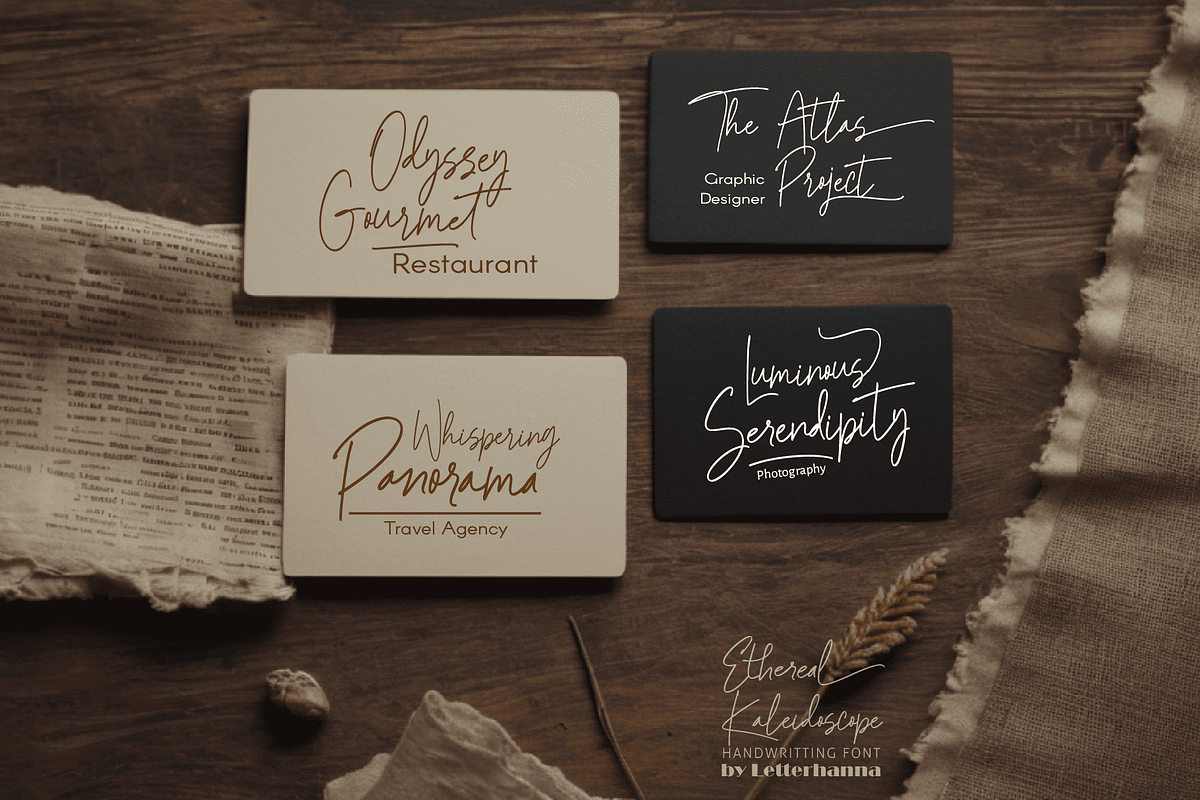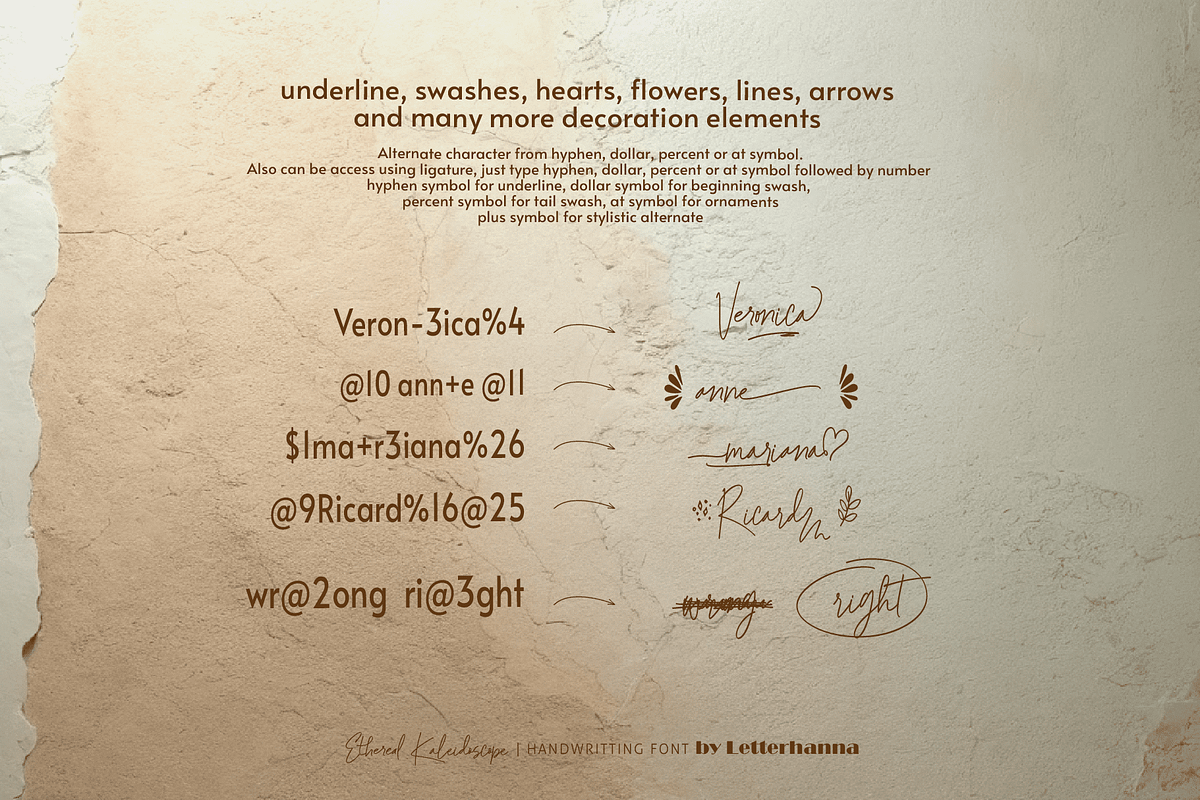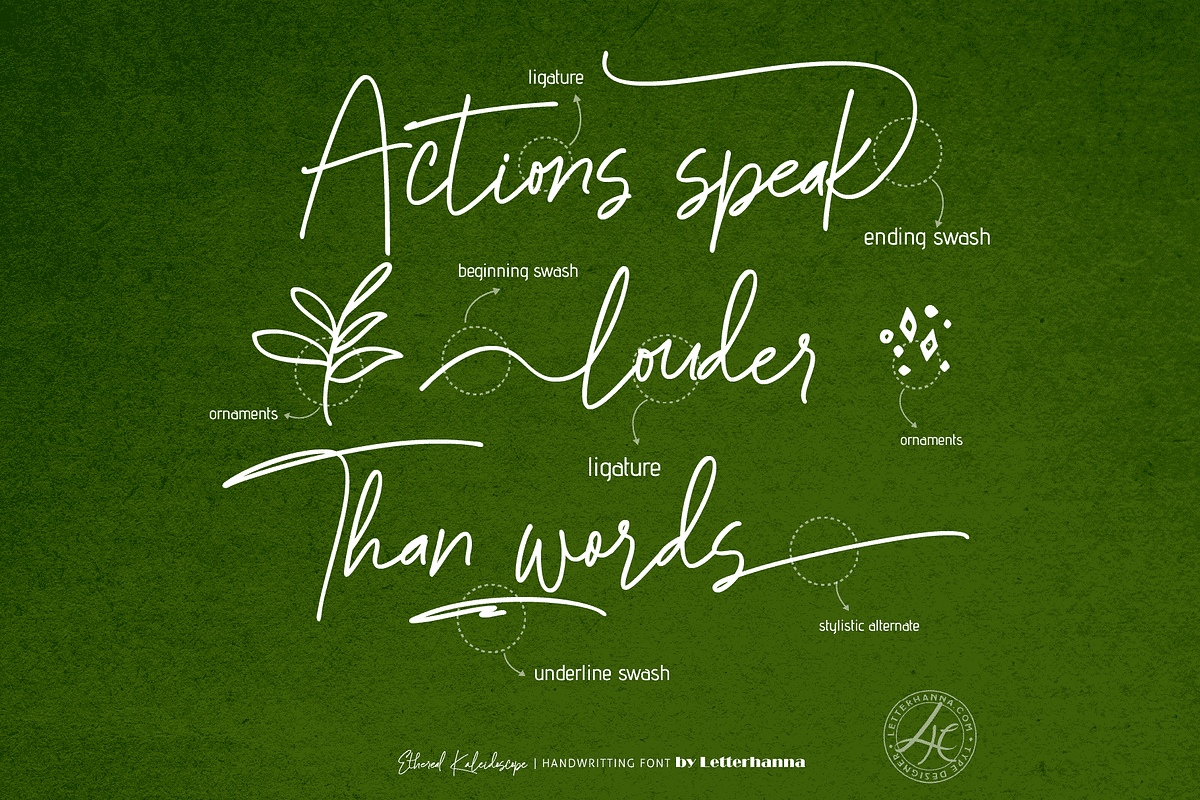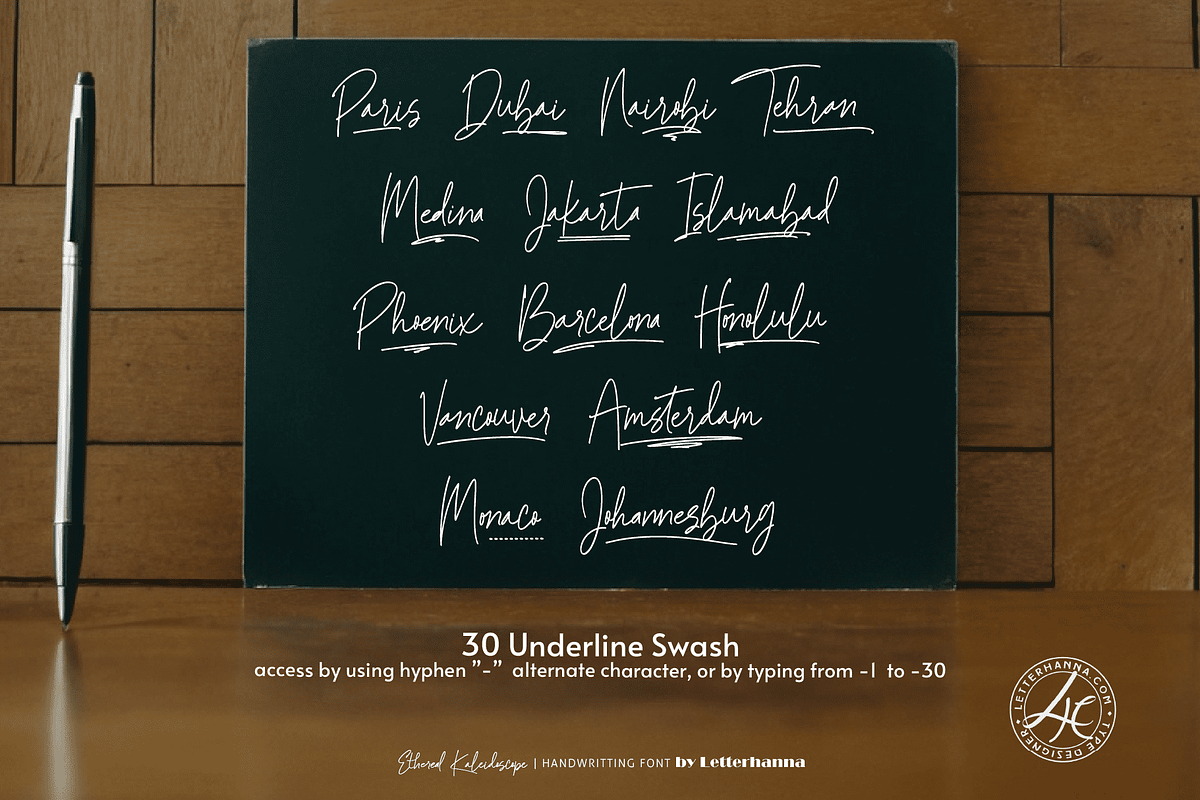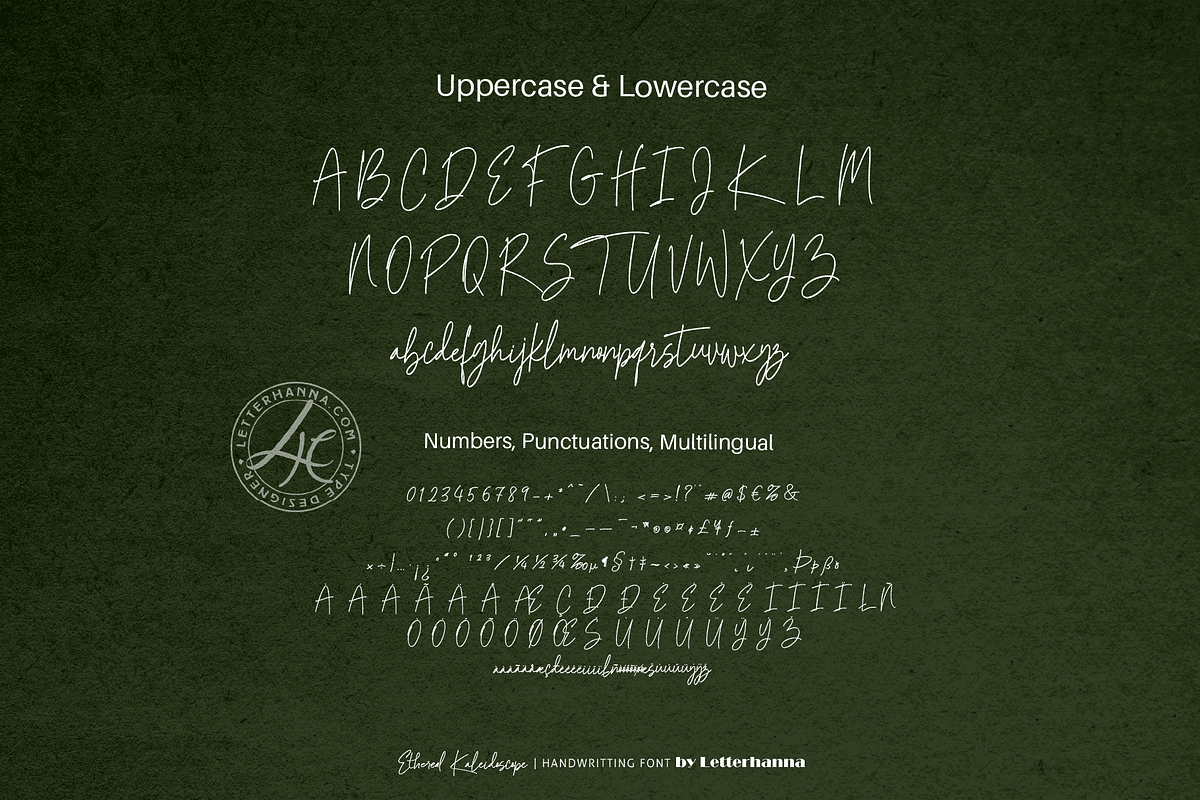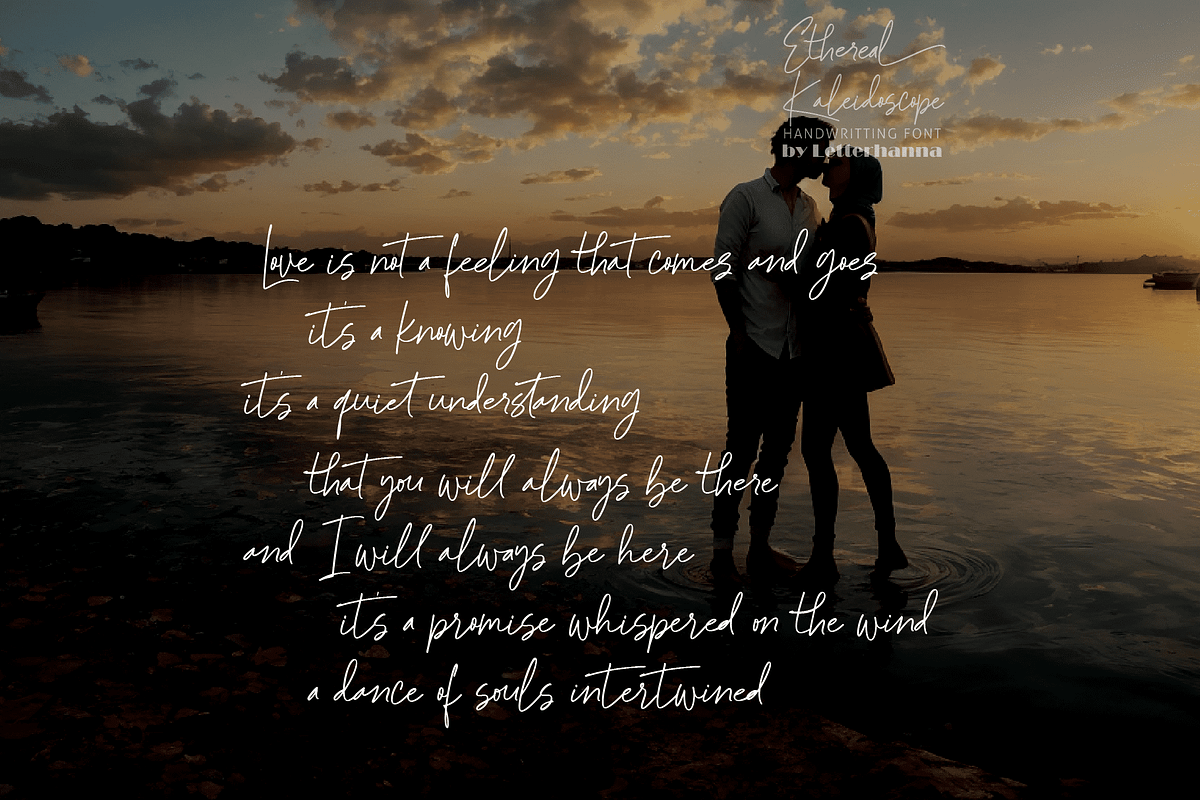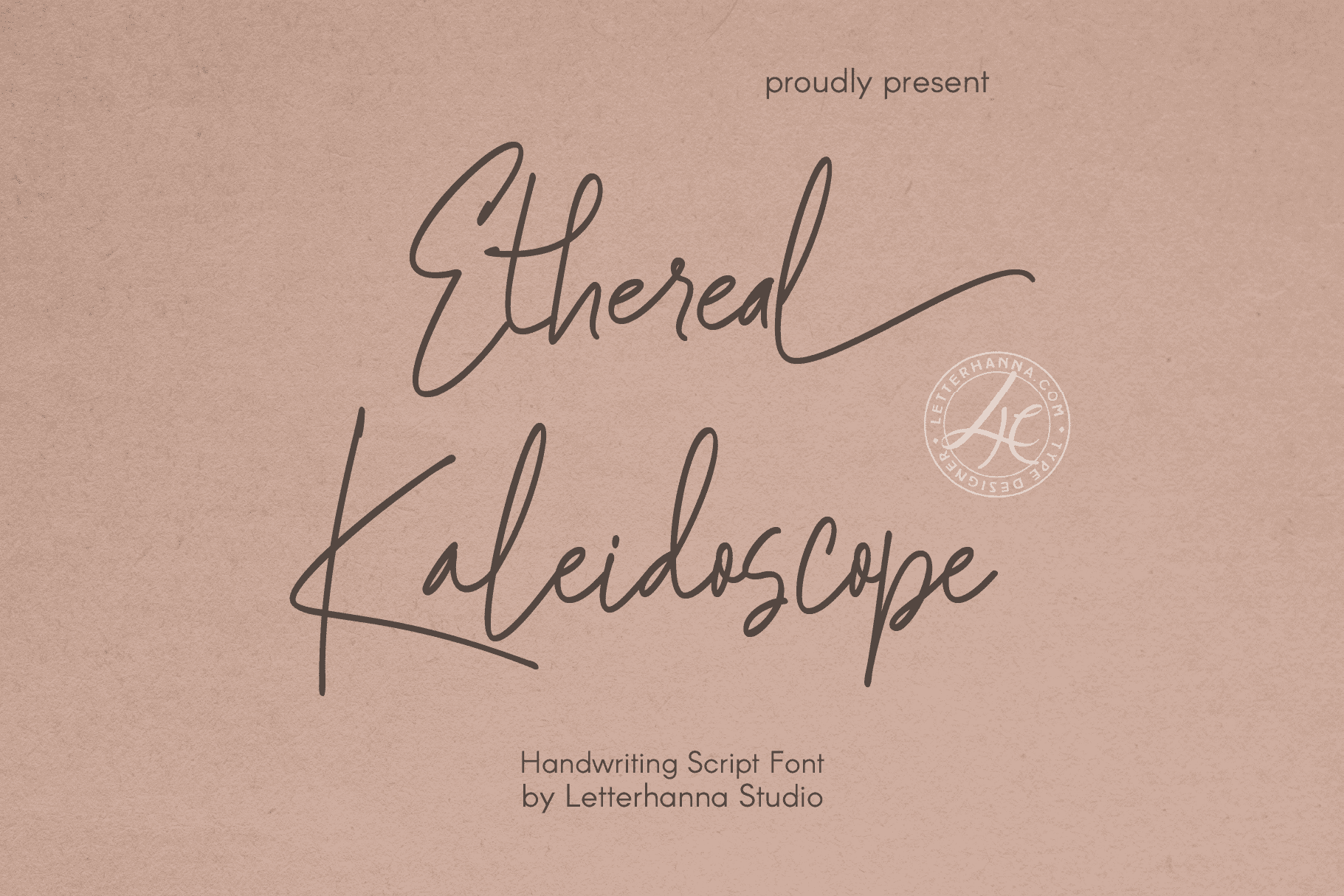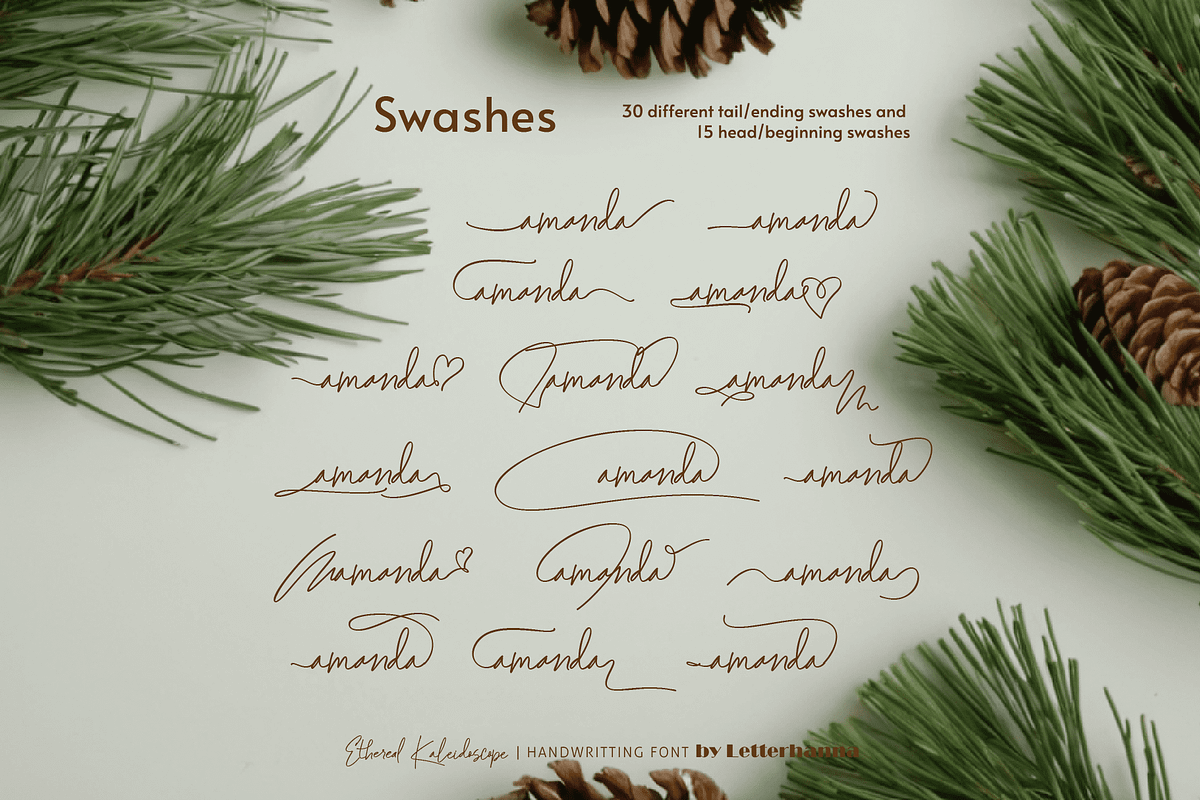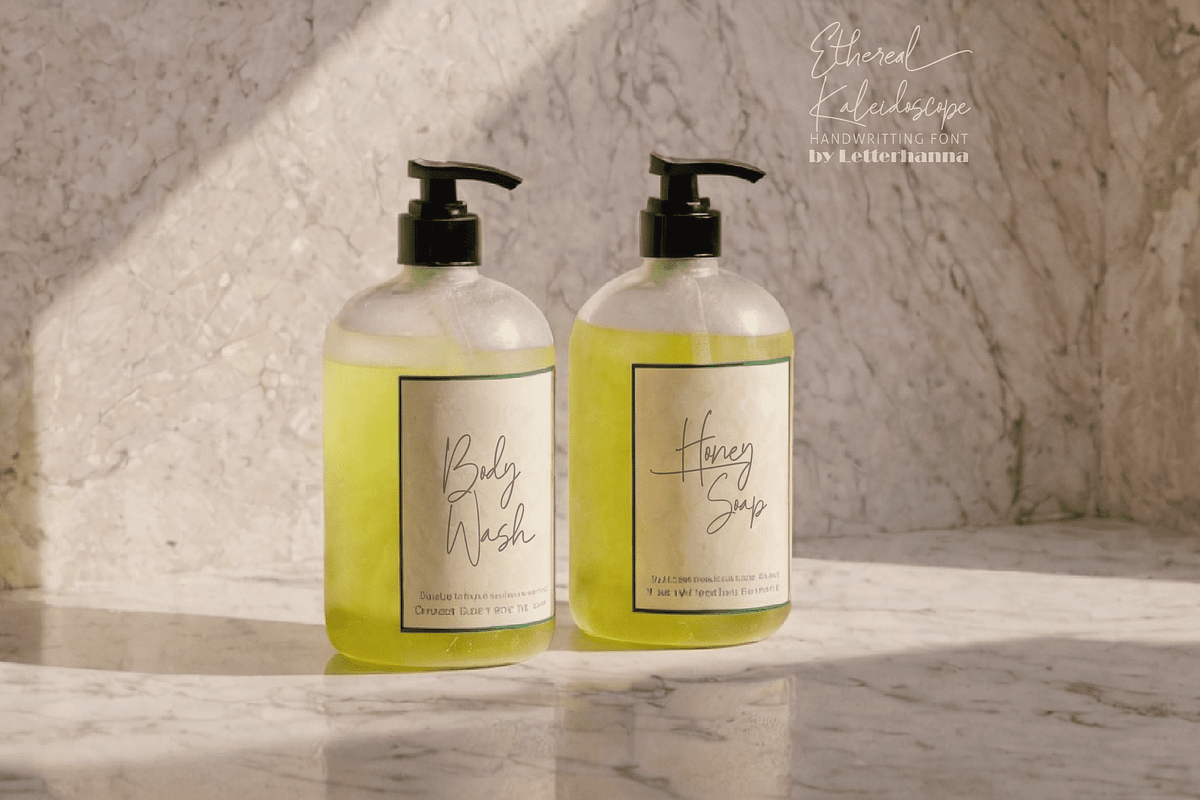
Ethereal Kaleidoscope Font
Introducing Ethereal Kaleidoscope, a new typeface that captures the essence of fleeting beauty and mesmerizing transformation. Inspired by the ever-shifting patterns of a kaleidoscope, this font boasts an enchanting flow and delicate details, perfect for projects that demand a touch of the otherworldly.
Ethereal Kaleidoscope dances across your designs, weaving a spell of wonder with its captivating curves and ethereal grace. Whether you're crafting captivating headlines, whimsical invitations, or otherworldly branding materials, this font will imbue your work with a touch of magic and endless possibility.
Easy Access to Glyphs and Swashes
Accessing Stylistic Alternates
Stylistic alternates can be accessed by typing a plus symbol "+" in front of the original letter. For example, type "+a" to get the stylistic alternate of the letter a.
Accessing Swashes and Ornaments
Underline Swashes: Use a hyphen symbol "-" followed by a number between 1 and 30. For example, type "-3", "-22", or "-17" to get various underline swashes.
Head/Beginning Swashes: Use a dollar sign "$" followed by a number between 1 and 9. For example, type "$2" or "$8" to get different head/beginning swashes.
Tail/Ending Swashes: Use a percent sign "%" followed by a number between 1 and 30. For example, type "%3" or "%15" to get various tail/ending swashes.
Ornaments: Use an "at" symbol "@" followed by a number between 1 and 26. For example, type "@4" or "@13" to get different ornaments.
PUA Encoding for Ease of Use. Ethereal Kaleidoscope Font is also PUA encoded, which means you can access all the glyphs and swashes with ease!
Uppercase and lowercase letters
Numbers and punctuation marks
Beginning and ending swashes
Underline swashes
Stylistic alternates
Ornaments
Easy access to swashes using ligatures